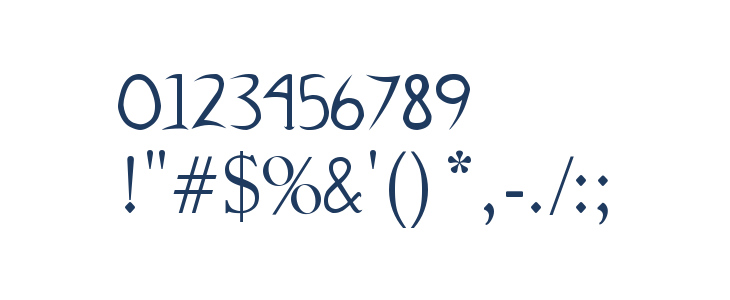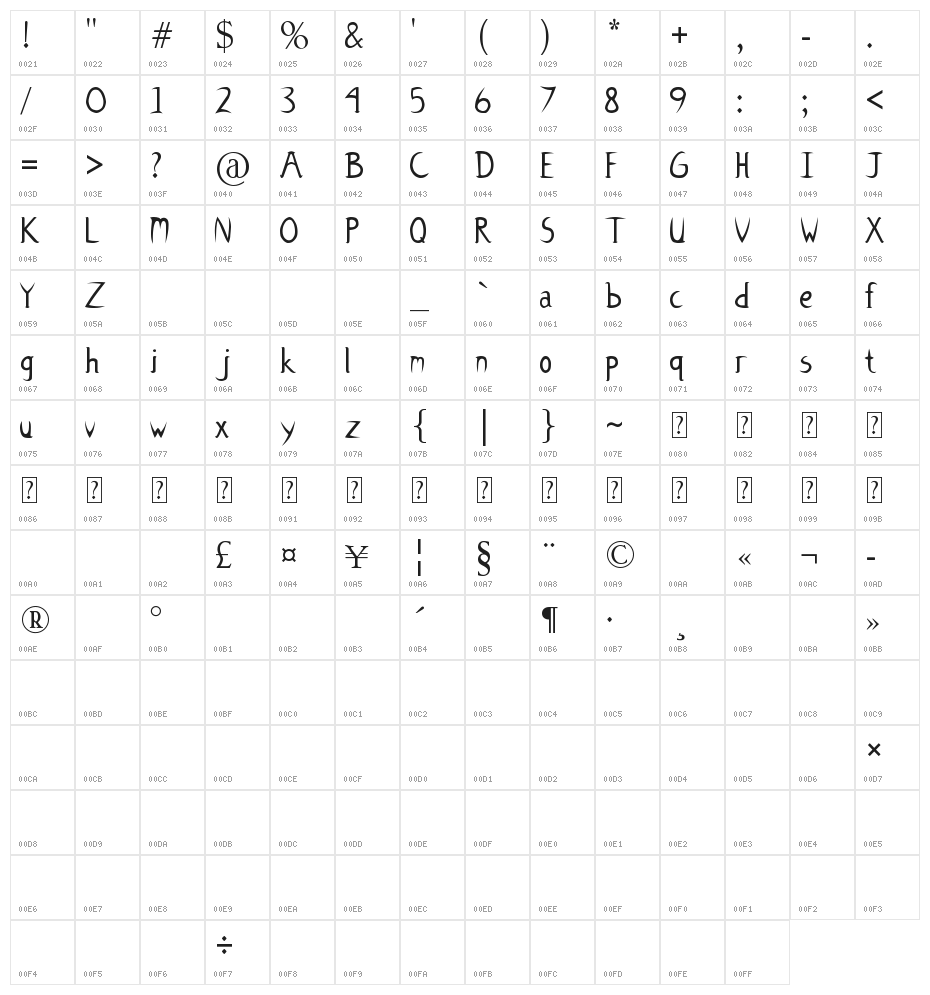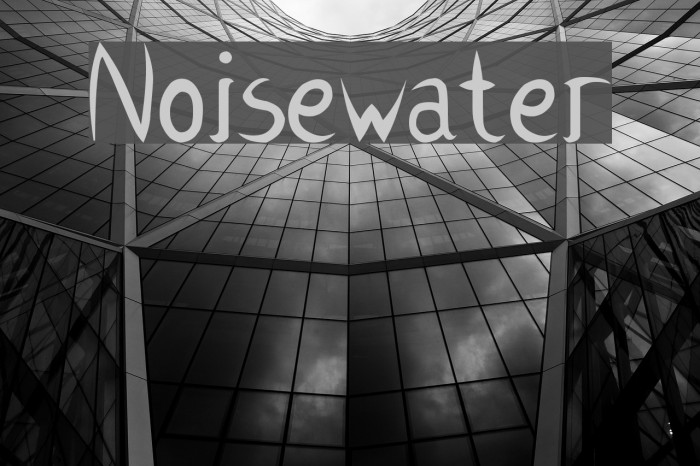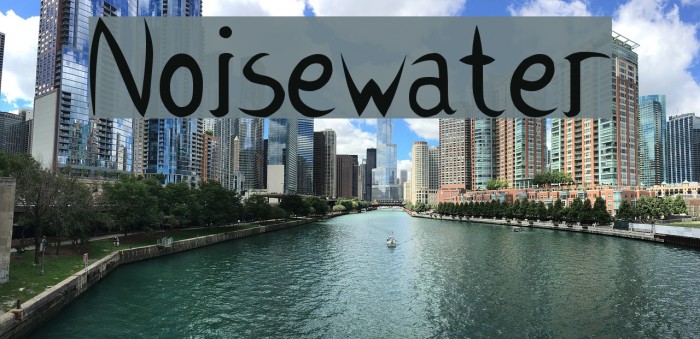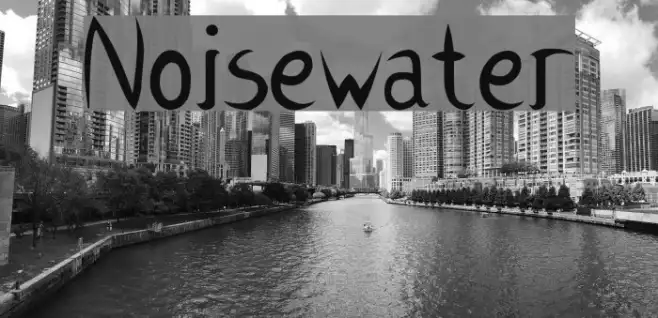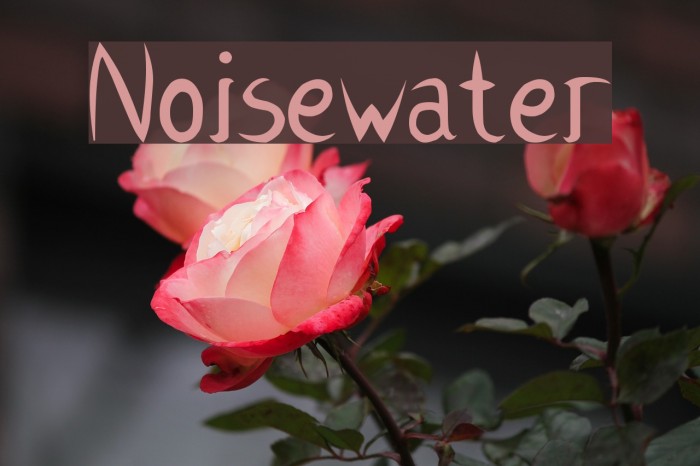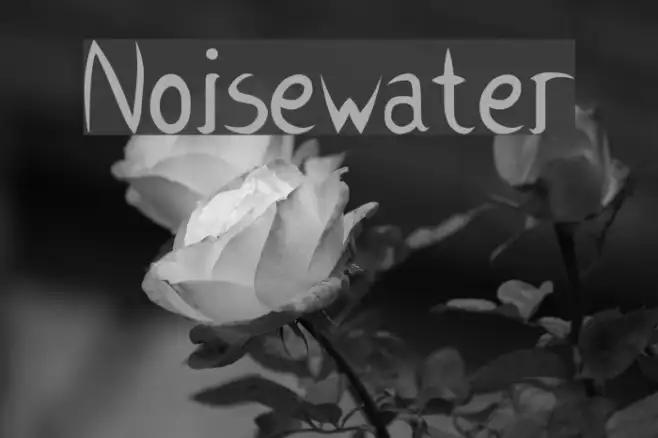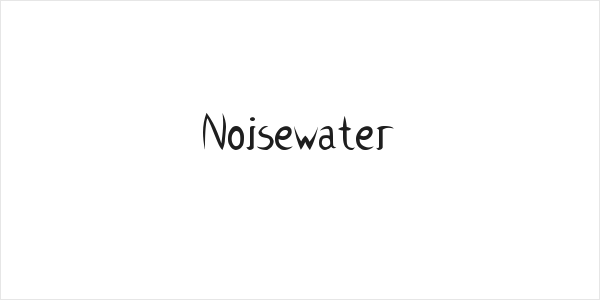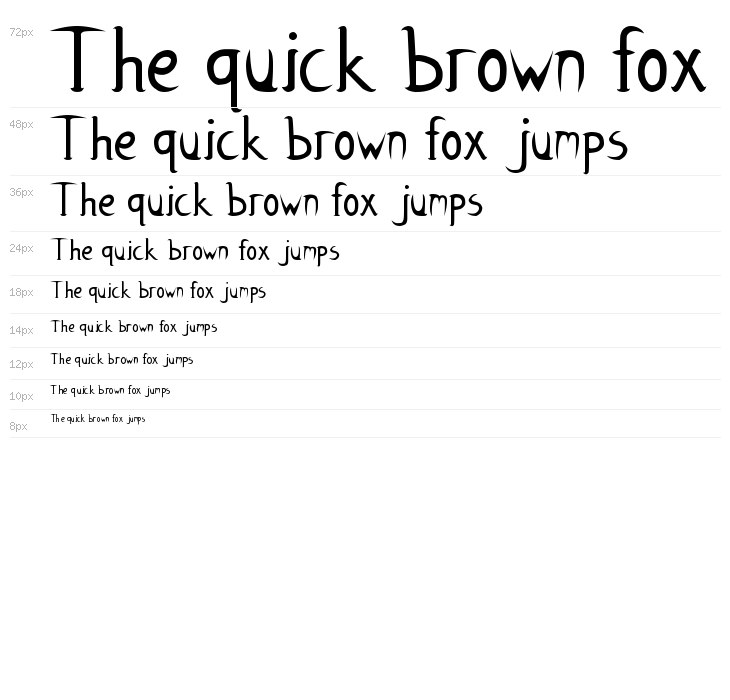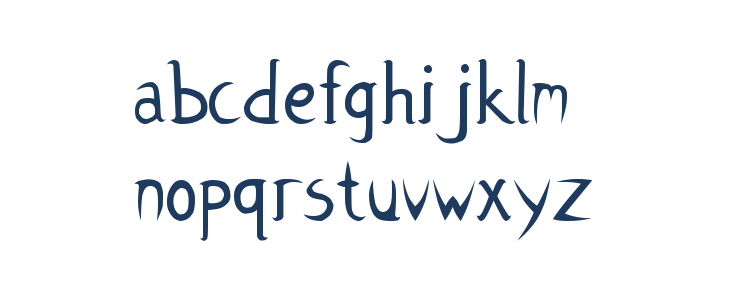
Noisewater Font
Noisewater Description
This font features a playful and whimsical design with a hand-drawn aesthetic. The characters exhibit a unique blend of sharp and smooth curves, giving them a dynamic and lively appearance. The uppercase letters are bold and slightly irregular, while the lowercase letters maintain a consistent flow with a touch of eccentricity. The numerals are distinct and easy to read, complementing the overall style. Special characters are creatively designed, adding to the font's charm. This font is ideal for projects that require a fun and informal touch, such as children's books, playful branding, or creative posters.
| Proposed Projects | Children's books, playful branding, creative posters, informal invitations. |